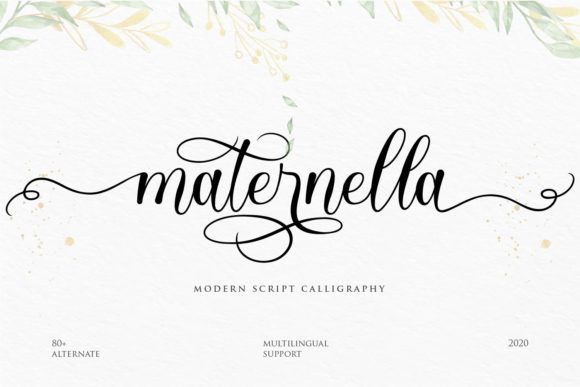
Behold Maternella Font, a timeless and flowing handwritten font that will captivate your senses and leave an everlasting impression. Immerse yourself in the world of elegance and sophistication as you explore the intricate details and remarkable features of this extraordinary font. Maternella is a font that dances across the page, its fluidity echoing the gracefulness of a ballerina. Its varying baseline and smooth lines create a dynamic rhythm, while its gorgeous glyphs and stunning alternates add an element of allure and charm.
Maternella is a font that is both versatile and captivating, possessing the ability to transform your designs into masterpieces. Whether you're creating stunning logos, eye-catching social media graphics, or heartfelt invitations, Maternella will elevate your words and bring them to life. Its delicate strokes and graceful curves will add a touch of magic to any project, leaving your audience spellbound.
With Maternella, you have the power to evoke emotions and create a lasting connection with your audience. Its timeless beauty will resonate with hearts and leave an unforgettable impression. This font is not just a collection of characters; it's an expression of art, a symphony of letters that come together to create a captivating narrative.
Embrace the allure of Maternella and embark on a creative journey like no other. Let your imagination soar as you discover the endless possibilities that this font holds. From whimsical wedding invitations to captivating marketing campaigns, Maternella will be your steadfast companion, guiding you towards creative excellence.